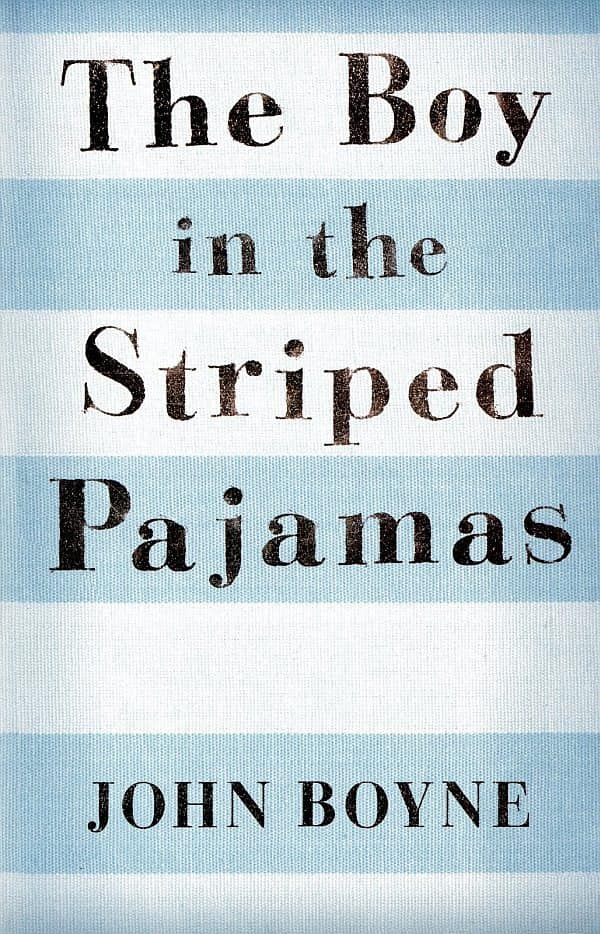
The Boy in the Striped Pyjamas Font
BookThe Boy in the Striped Pyjamas is a 2006 novel by Irish novelist John Boyne. The book is set during World War II and tells the story of Bruno, a young German boy whose father is a high-ranking Nazi officer. In 2008 the film of the same name based on the novel was released.
Bodoni Classic Text Bold, a contemporary serif created by German type designer Gert Wiescher, is similar to the font used for the text on the book cover. The title on the movie poster as shown below uses Bembo, an old-style serif typeface from 1929 that was based on a design created by Francesco Griffo sometime around 1495. It was initially used in an edition of a poem by the poet Pietro Bembo, after whom it is named.
title in the film poster